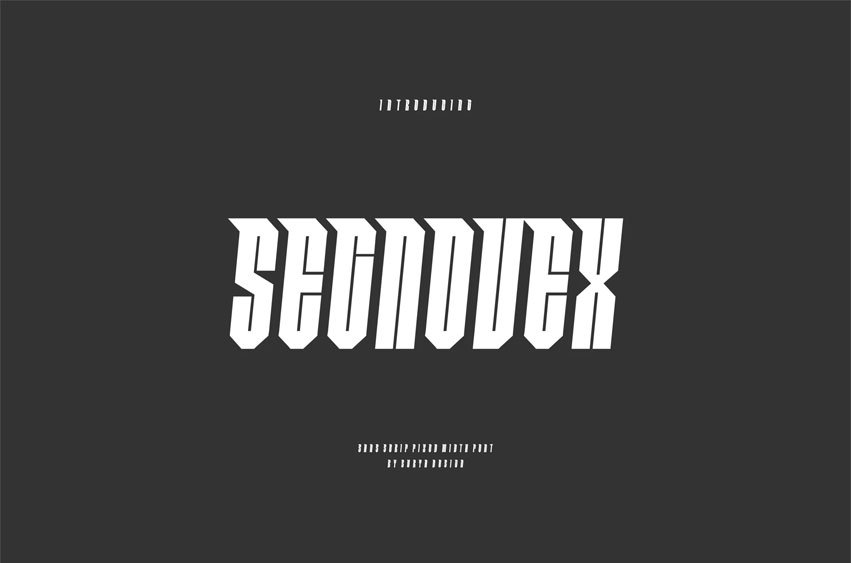
Segnovex Font Modern Font is a bold and authentic display font. The font is suitable for any branding project, like logos,esport, and many more.
outstanding in a wide range of contexts.